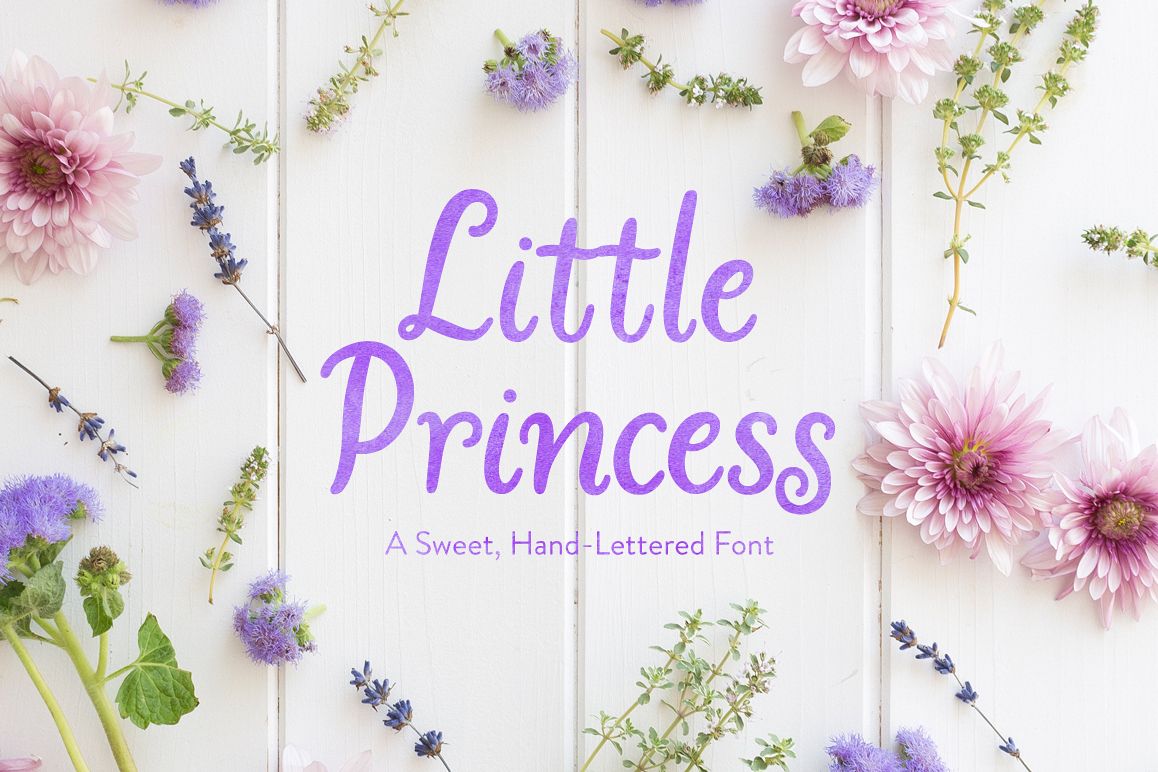
Little Princess
Little Princess is a sweet, rounded, slightly angled, hand-lettered font—my first new font in quite some time. She is named in honor of my adorable granddaughter, and is adorable on invitations, logos and photo overlays.
It includes over 600 different characters for a range of languages and dialects, as well as stylistic alternates, ligatures, and a few catchwords and ornaments. I recommend you use the font in an app that is Open-Type savvy such as Adobe Illustrator, InDesign, or one of the more recent versions of Photoshop (CC2015+) to access and take advantage of these features. Make sure that you install the .OTF version of the font. The .TTF will not have the features like alternates.